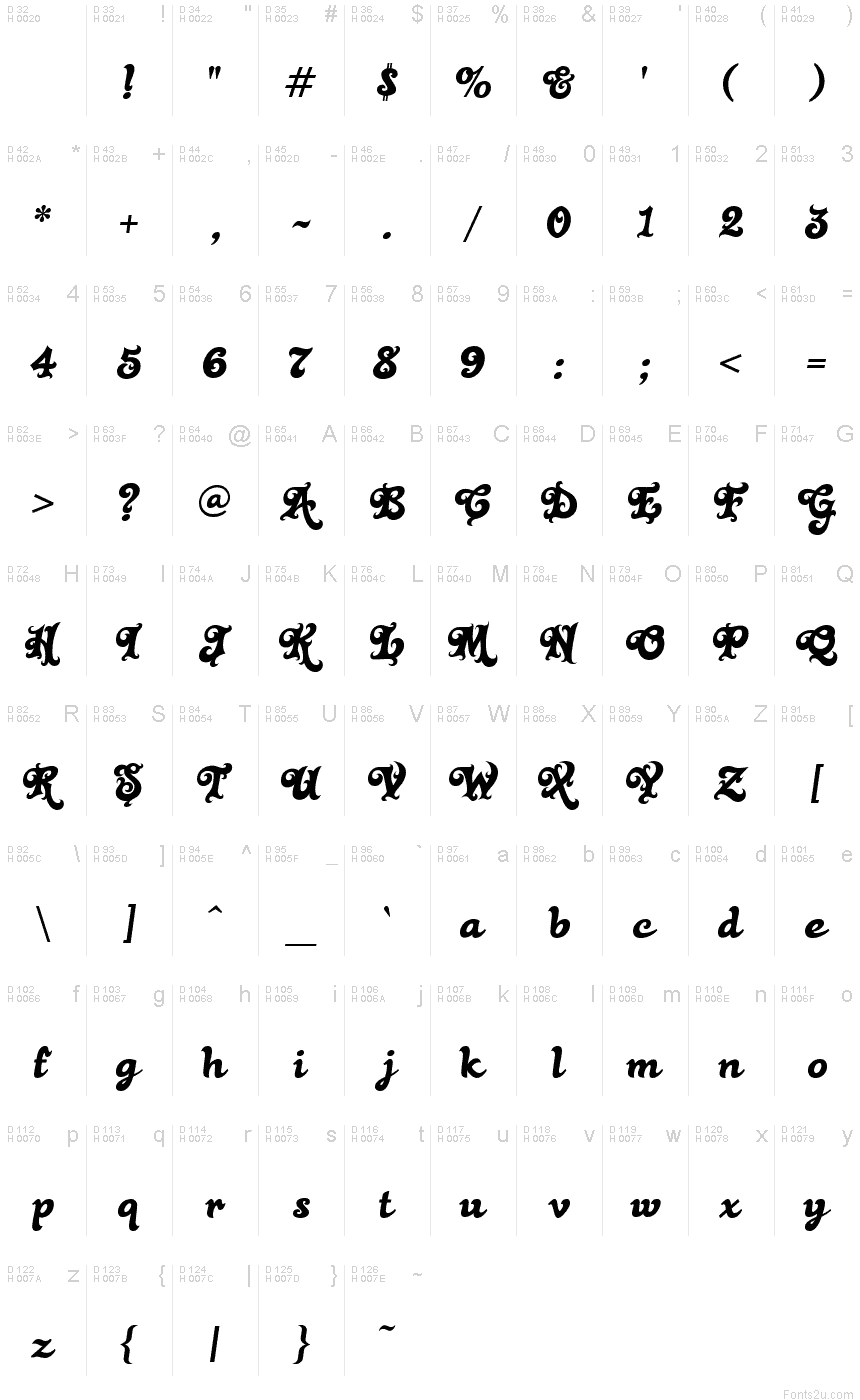
Black Rose
Black Rose font by Bright Ideas is a free ornamental calligraphy font. Its thick, inky strokes and curling flourishes give each word a dark-romantic pull—part Victorian keepsake, part tattoo-parlor swagger—so even a short title feels rich, dramatic, and unmistakably handmade.
Using Black Rose works beautifully for gothic wedding invitations, candle and perfume labels, romance book covers, tattoo-inspired branding, cocktail menus, boutique packaging, and moody poster titles. Set Black Rose large so the swirls have room to breathe, then pair this free font with a quiet sans serif for body text.